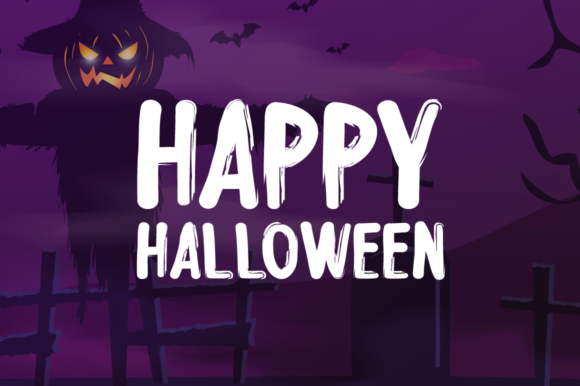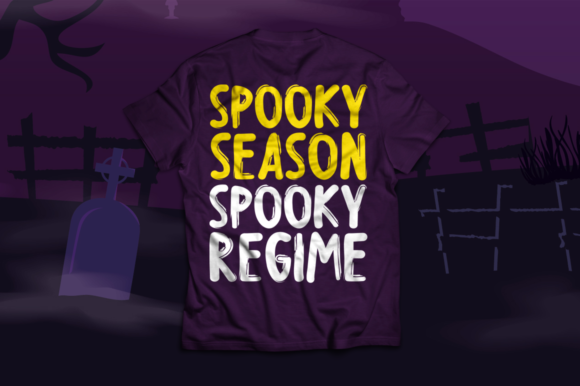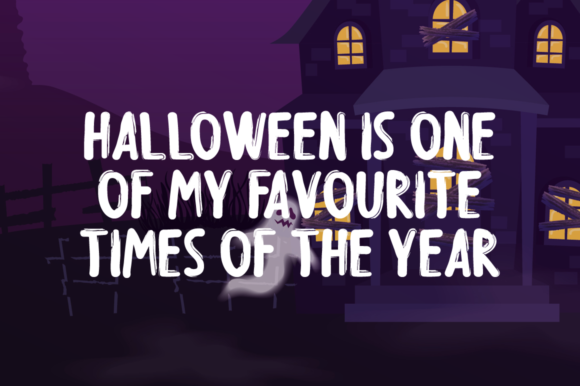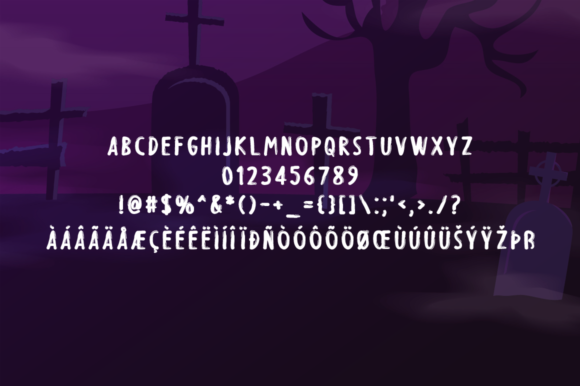
Unleash the Spookiness: A Comprehensive Guide to Creepy Night Font
Are you a designer or crafter looking for a font that can add a touch of eeriness to your project? Look no further than Creepy Night Font. This fascinating display font is perfect for creating captivating and readable content that will leave your audience spellbound. In this article, we’ll dive into the world of Creepy Night Font, exploring its features, uses, and benefits.
What is Creepy Night Font?
Creepy Night Font is a display font designed to evoke a sense of mystery and intrigue. With its unique and captivating characters, this typeface is perfect for creating eye-catching headlines, titles, and quotes. The font’s easily readable style makes it versatile enough to be used for any project, whether you’re creating a spooky Halloween-themed design or a more subtle, eerie atmosphere.
Features of Creepy Night Font
So, what makes Creepy Night Font so special? Here are a few of its standout features:
- Unique Character Set: Creepy Night Font boasts a distinctive character set that will add a touch of whimsy to your designs. Each letter is carefully crafted to create a sense of mystery and intrigue.
- Easily Readable: Despite its eerie vibe, Creepy Night Font is surprisingly readable. This makes it perfect for use in a variety of projects, from posters and flyers to blog posts and social media graphics.
- Versatile: Creepy Night Font is versatile enough to be used for any project, whether you’re creating a spooky Halloween design or a more subtle, eerie atmosphere.
Uses of Creepy Night Font
So, how can you use Creepy Night Font in your designs? Here are a few ideas to get you started:
- Halloween-themed Designs: Creepy Night Font is perfect for creating spooky Halloween-themed designs, from posters and flyers to social media graphics and blog posts.
- Horror and Thriller Content: If you’re creating content for the horror or thriller genre, Creepy Night Font is a great choice. Use it to create eye-catching headlines and titles that will grab your audience’s attention.
- Eerie Atmosphere: Want to create a more subtle, eerie atmosphere in your designs? Creepy Night Font is perfect for creating a sense of mystery and intrigue.
Benefits of Using Creepy Night Font
So, why should you choose Creepy Night Font for your next project? Here are a few benefits of using this versatile font:
- Adds a Touch of Whimsy: Creepy Night Font adds a touch of whimsy to your designs, making them stand out from the crowd.
- Improves Readability: Despite its eerie vibe, Creepy Night Font is surprisingly readable, making it perfect for use in a variety of projects.
- Increases Engagement: Creepy Night Font is designed to grab attention and evoke emotion. Use it to create eye-catching headlines and titles that will engage your audience.
Tips for Using Creepy Night Font
Here are a few tips for getting the most out of Creepy Night Font:
- Experiment with Sizes: Creepy Night Font looks great in a variety of sizes, from large headlines to smaller body text.
- Pair with Other Fonts: Creepy Night Font pairs well with a variety of other fonts. Experiment with different combinations to find the perfect look for your project.
- Use in Moderation: While Creepy Night Font is perfect for creating eye-catching headlines and titles, use it in moderation to avoid overwhelming your audience.
In conclusion, Creepy Night Font is a fascinating display font that’s perfect for adding a touch of eeriness to your designs. With its unique character set, easily readable style, and versatile uses, this font is sure to become a staple in your design toolkit. Whether you’re creating a spooky Halloween-themed design or a more subtle, eerie atmosphere, Creepy Night Font is the perfect choice.